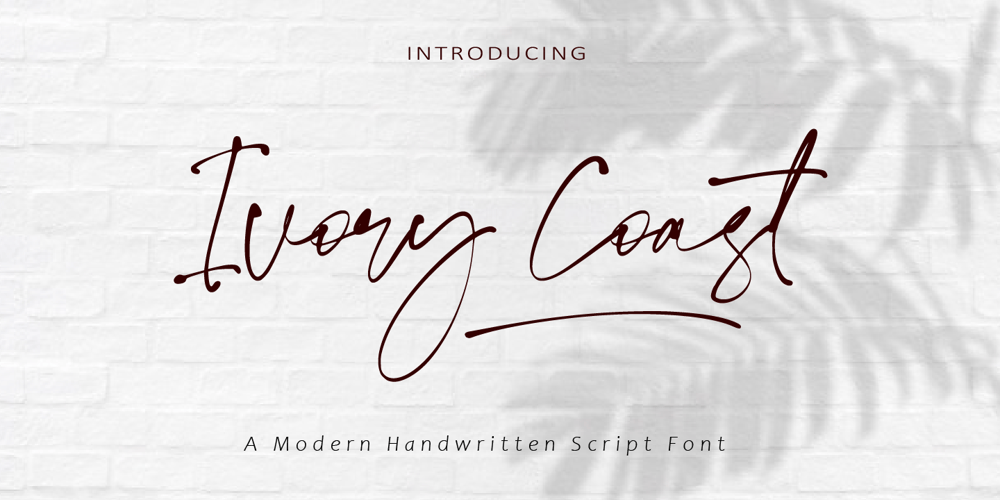
Ivory Coast Font Family was designed by Amin Maryono and published by Aminmario Studio. Ivory Coast contains 2 styles and family package options. IntroducingIvory Coast font is modern and elegant handwritten with a quick stroke pen effect.Comes with regular and italic. With built in Opentype features, this script comes to life as if you were writing it yourself.This font is great for your creative projects such as watermark on photography, and perfect for logos & branding, photography, invitation, watermark, advertisements, product designs, stationery, wedding designs,label, product packaging, social media, movie titles, books titles, a short text even a long text letter and good for your secondary text font with sans or serif. And also for special events or anything that need handwritting taste.Don’t hesitate if you have any questions.Thanks for checking out this font. I hope you enjoy it!AminMario